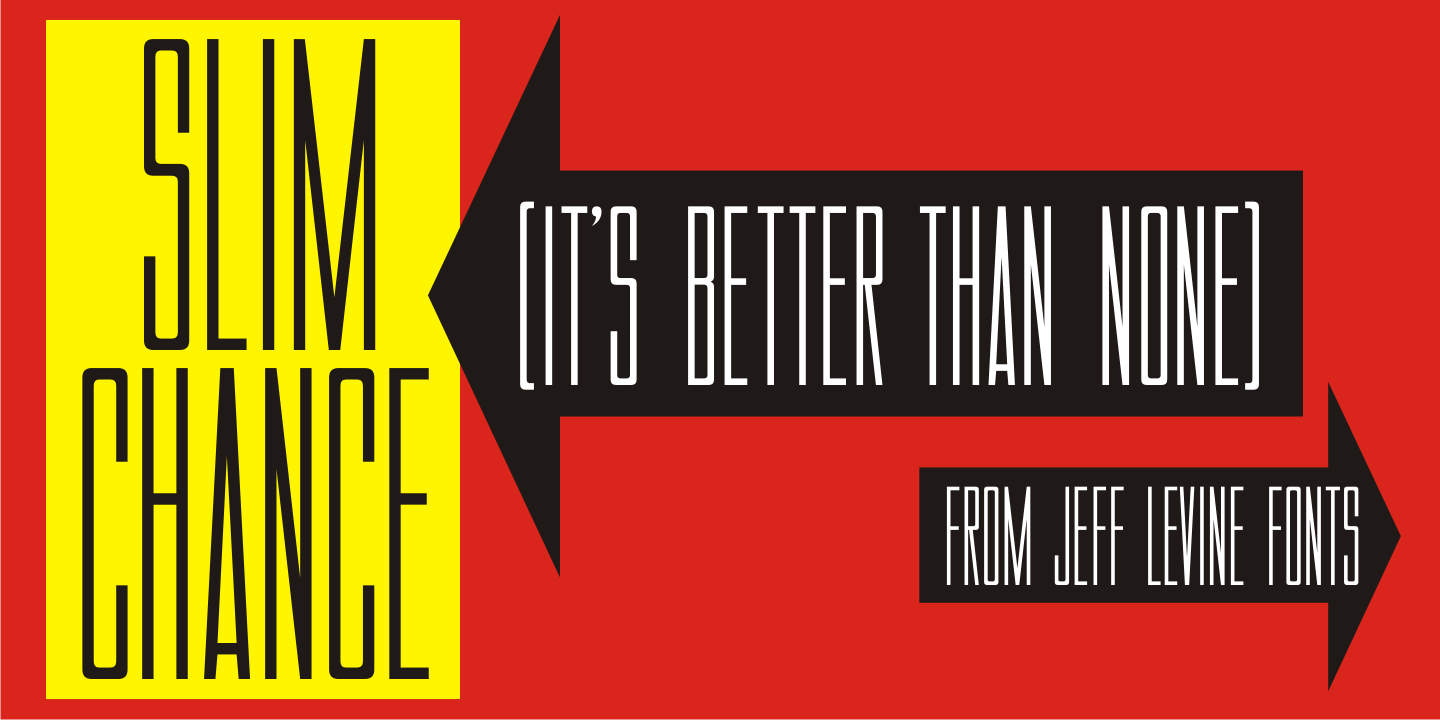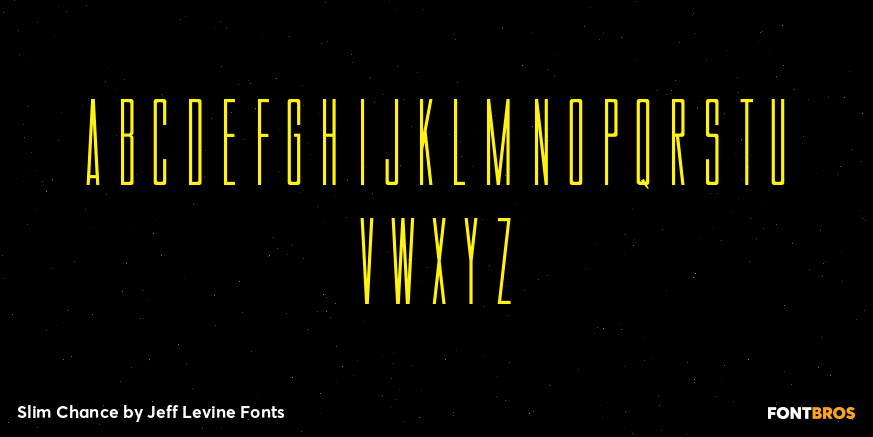
Slim Chance
Another bit of font inspiration came to the attention of Jeff Levine through his friend Gene Gable. An image of vintage packaging for Aquapruf Ear Drum Protectors (swimmer's ear plugs) offered the narrow and condensed lettering that is the basis for Slim Chance JNL.
Slim Chance by Jeff Levine Fonts